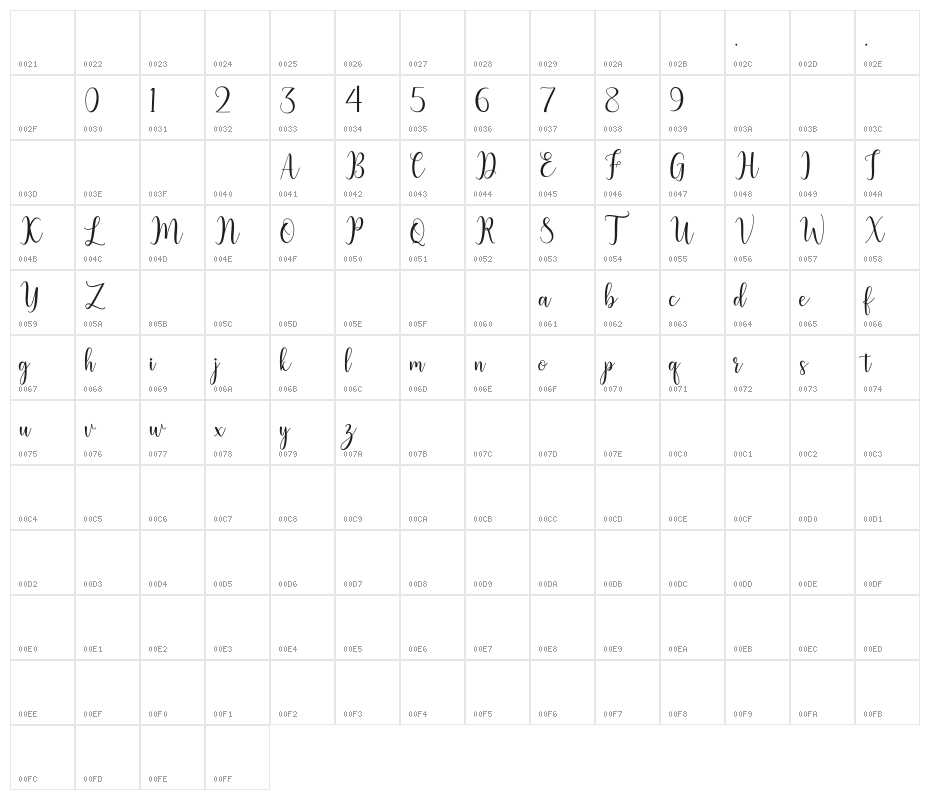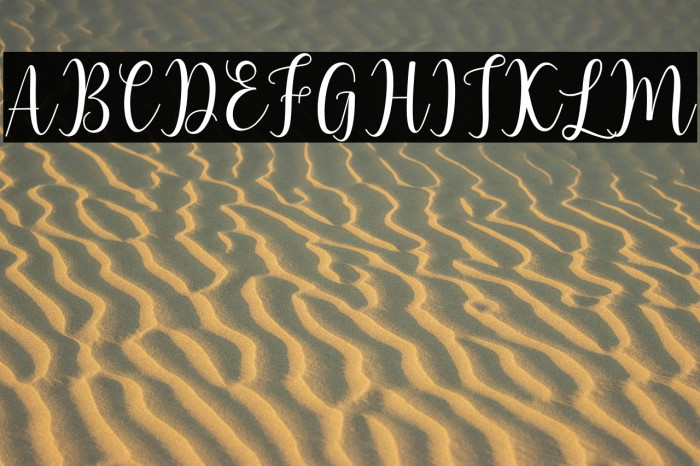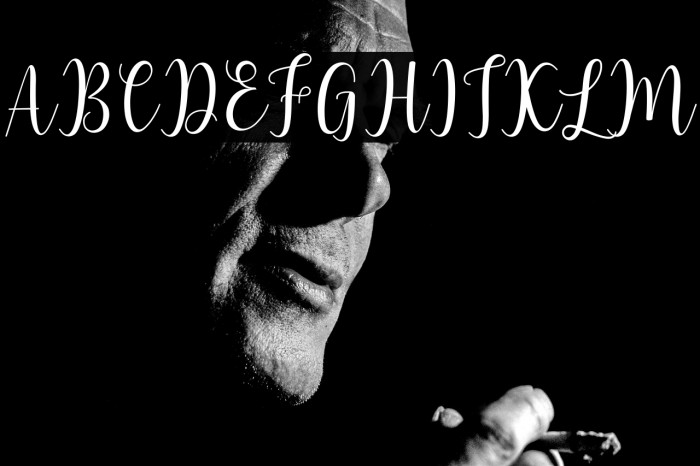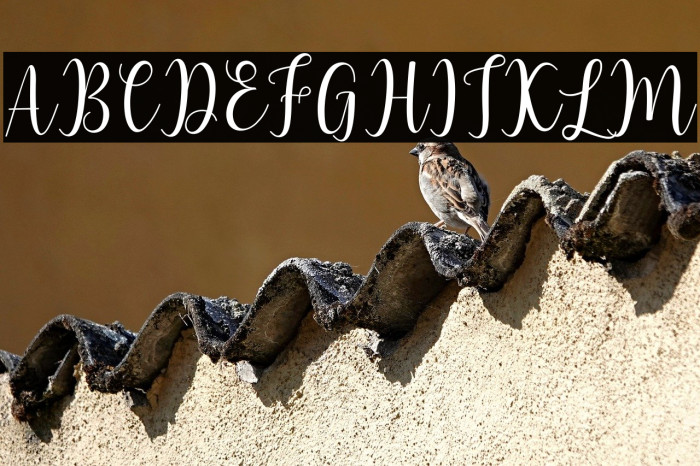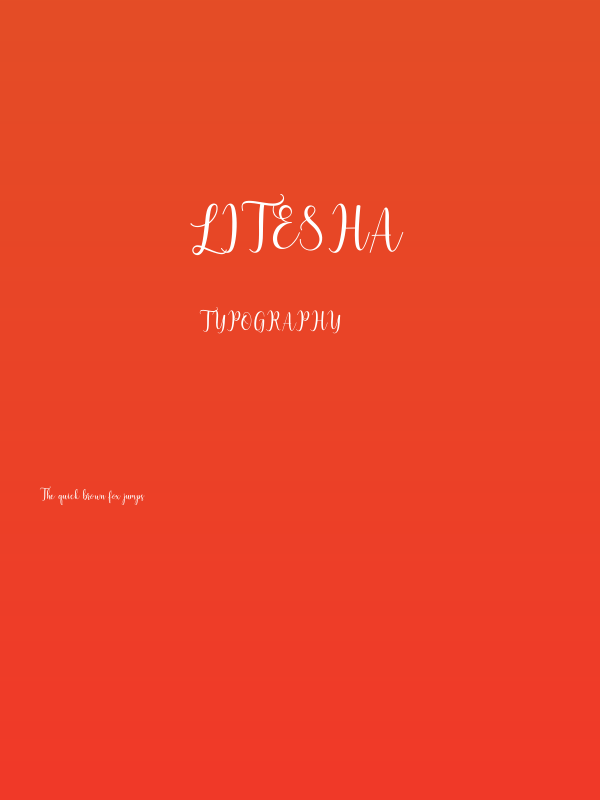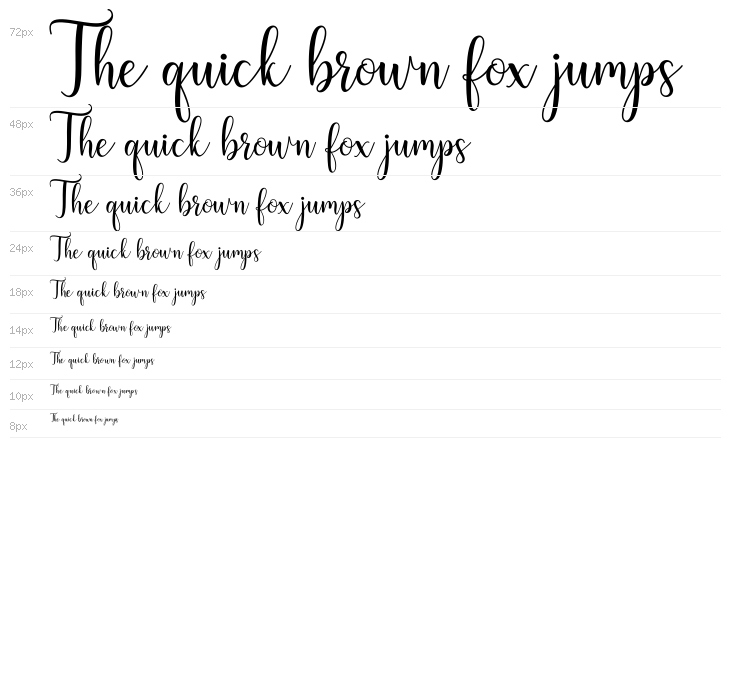
litesha Font
litesha Description
This font features an elegant and flowing script style with a modern twist. The uppercase letters are tall and slender, with graceful curves and loops that give them a sophisticated appearance. The lowercase letters maintain a consistent flow, with some characters having unique flourishes that add to the font's charm. The numerals are stylish and complement the overall aesthetic, while the special characters are designed to match the script's elegance. The font's design is both decorative and functional, making it suitable for various creative applications.
Use CaseLogos, Headlines, Invitations
Proposed ProjectsIdeal for wedding invitations, branding, greeting cards, and elegant packaging designs.